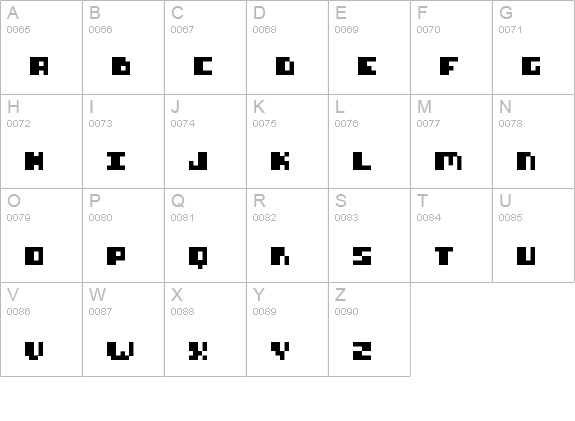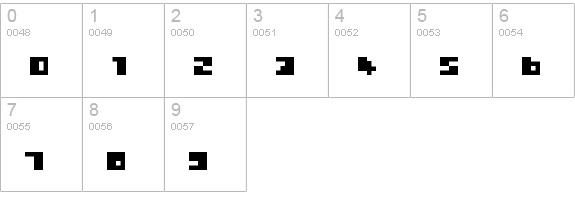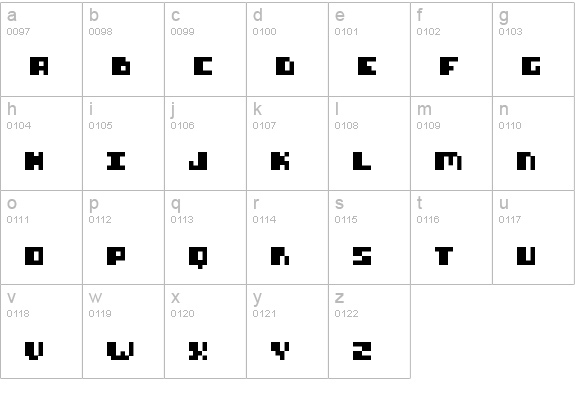
HIWEBT Font Details
HIWEBT font is a versatile and modern typeface that is perfect for a wide range of design projects. With its clean lines and stylish appearance, HIWEBT font exudes a sense of professionalism and sophistication. Whether you are working on a website, logo design, or print materials, this font is sure to make a lasting impression. What's even better is that HIWEBT font is available for free download at FontsMarket.com. You can easily access this font and use it in your projects without any cost. Don't miss out on this amazing opportunity to enhance your designs with the sleek and elegant HIWEBT font. Download it now and elevate your design game to the next level!